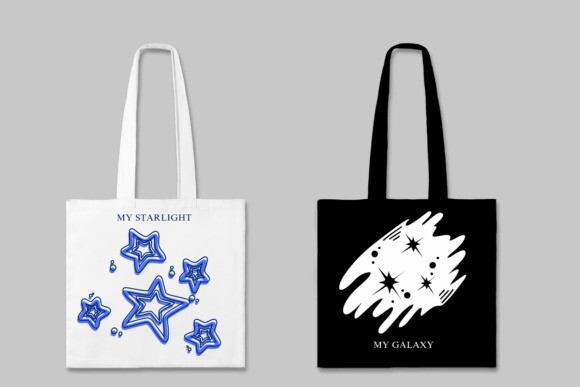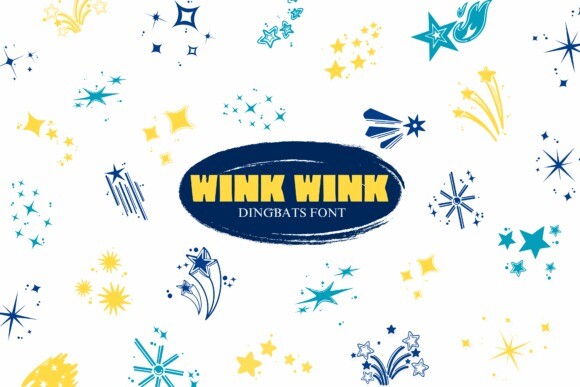
Wink Wink Font
Wink Wink Font is a dingbats font with theme with a sketch style. This font can enhance your creative projects such as wedding invitations, DIY, crafts, decorations, logos, and many other creative ideas.